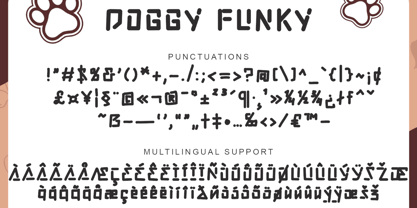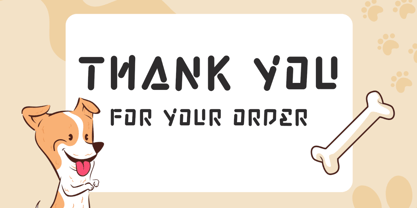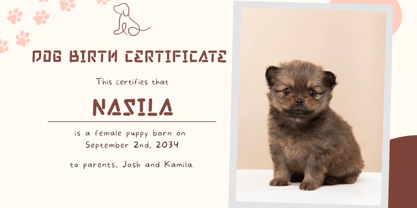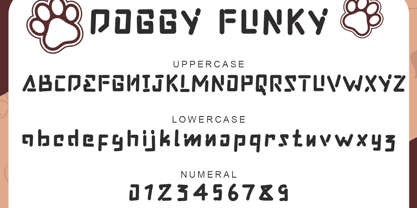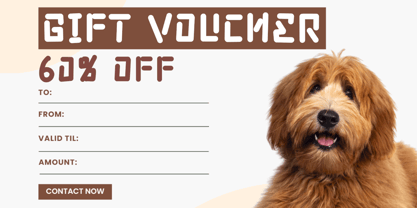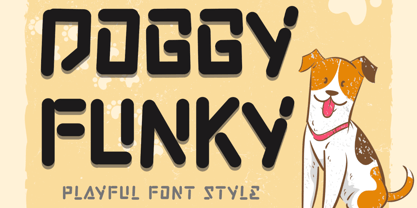
Doggy Funky
by Yoga Letter
The Doggy Funky Font Family was designed by Isroni Yoga Prasetya and published by Yoga Letter. Doggy Funky contains 1 styles. More about this family
"Doggy Funky" is a cute and unique display font. This font is equipped with uppercase, lowercase, numeral, punctuations and multilingual support. Very suitable for use for spring, summer, doggy font, animal font, cartoon titles, comic titles, posters, prints, stickers, banners, branding and others.